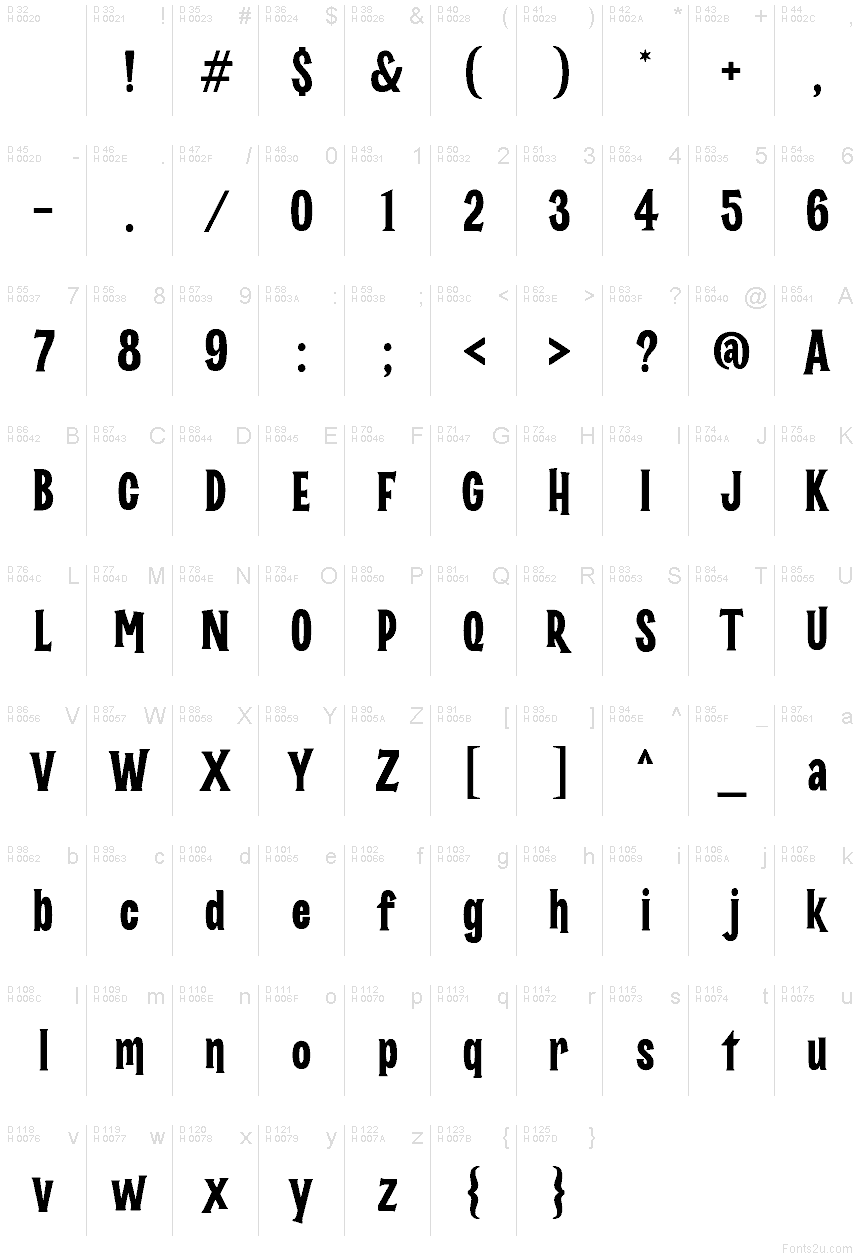
Christmas Spark
Christmas Spark font by Excellent Ritma Florendia is a free Christmas holiday decorative typeface. Thick, inky strokes and tall, rounded shapes give it that cozy storybook feel, while the slightly uneven rhythm adds a playful, hand-crafted charm—like letters cut from velvety black paper. It has enough weight to stand out over busy backgrounds of snowflakes, lights, or wrapping paper textures without losing legibility.
Using Christmas Spark, your headlines instantly feel festive and warm, whether you’re designing greeting cards, gift tags, party invitations, seasonal posters, social media graphics, or shop window signage. This free font shines when set large, with plenty of breathing room, and pairs beautifully with a simple sans serif for supporting text to keep layouts clear and modern.